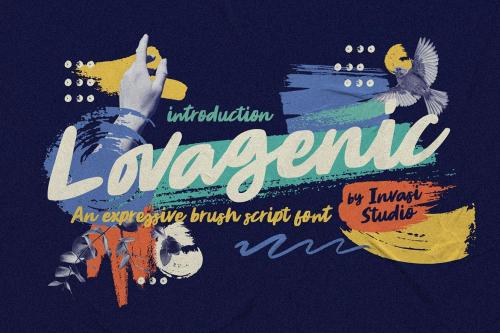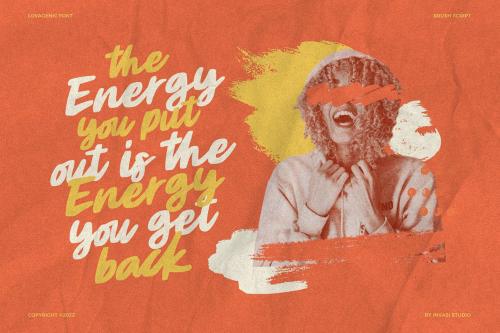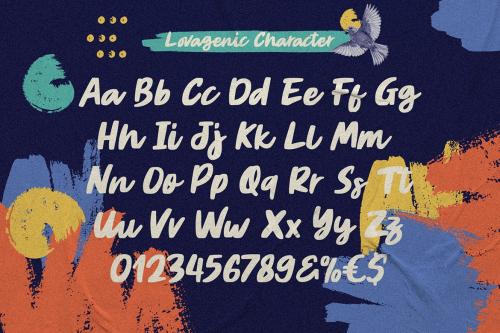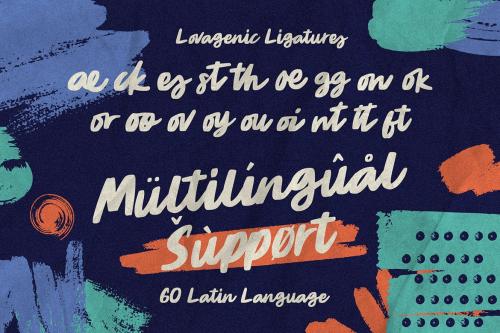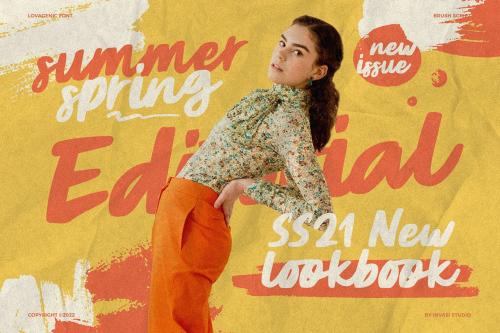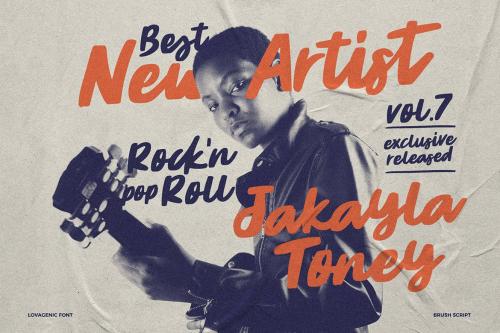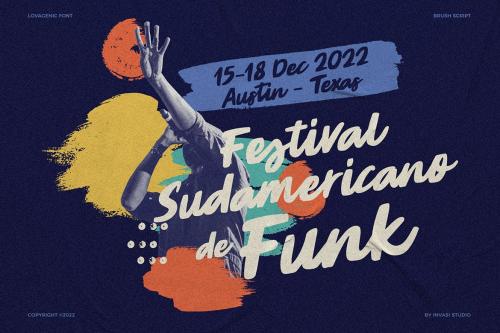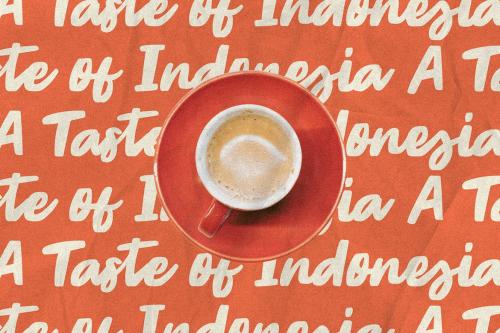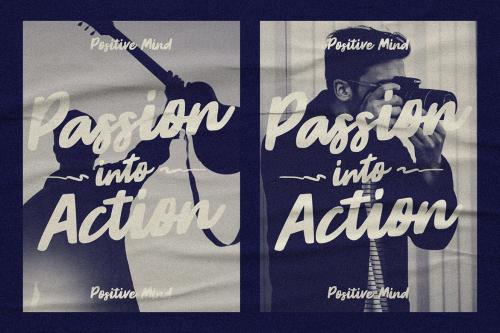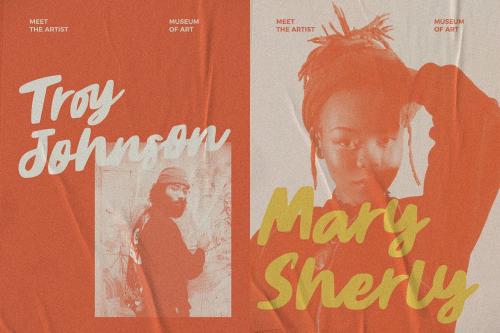
洛凡吉克 - 有机刷字体
Lovagenic - Organic Brush Font
Lovagenic is a handmade script font with expressive and organic feels! Comes with ligatures that can be used to add more personality to your projects. Suitable for branding logo, hand lettering, flyers, greeting cards, packaging, or apparel design. This font will never disappoint you if you want to add a handmade touch to your design.
**Features:**
- Total 208 Glyph
- Uppercase & Lowercase
- Numerals & Punctuation
- Ligature
- Multilanguage Supports 60+ Latin based languages